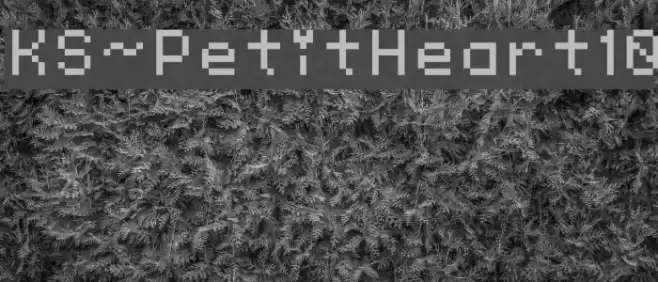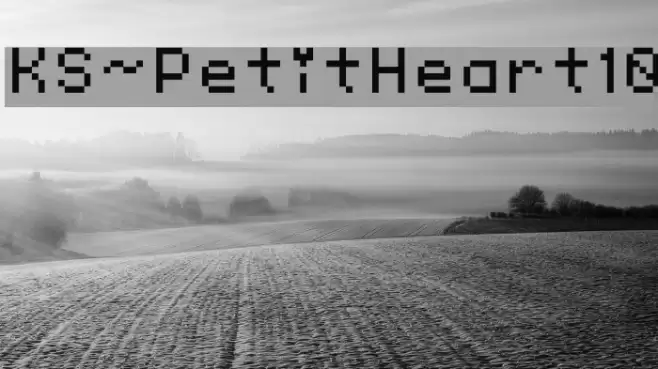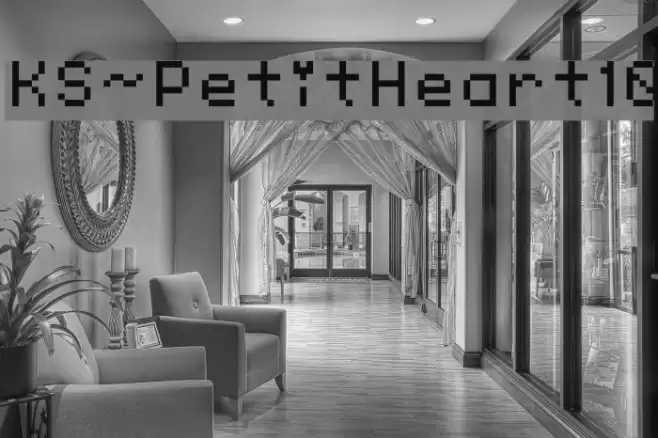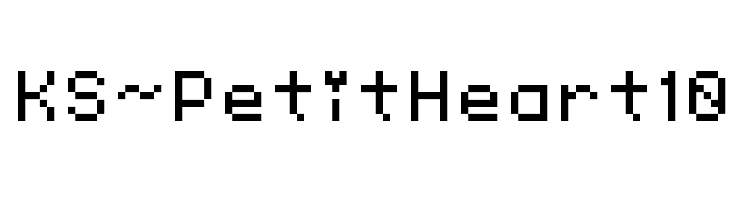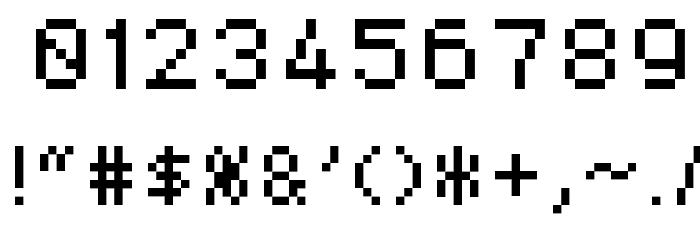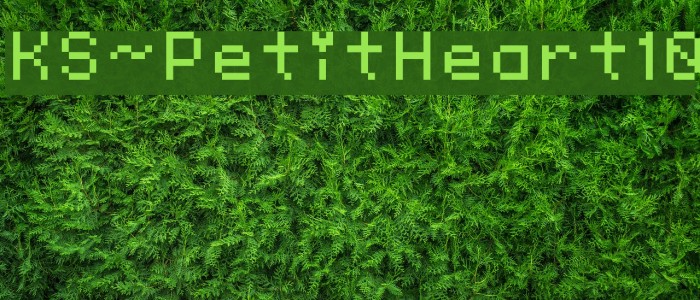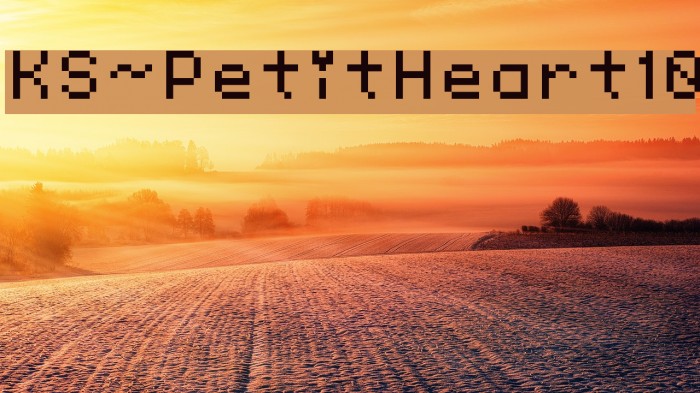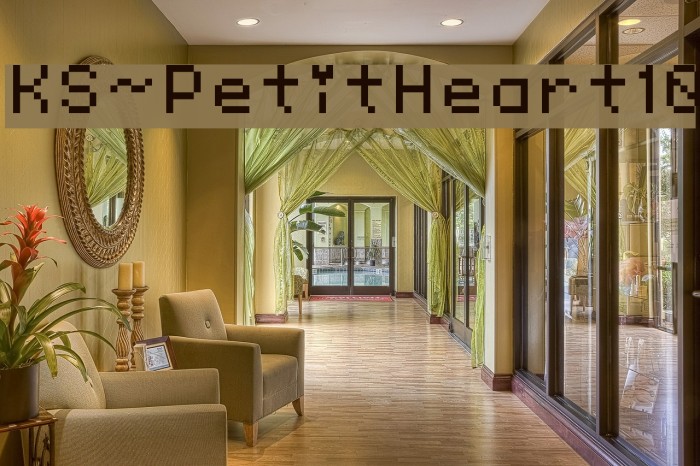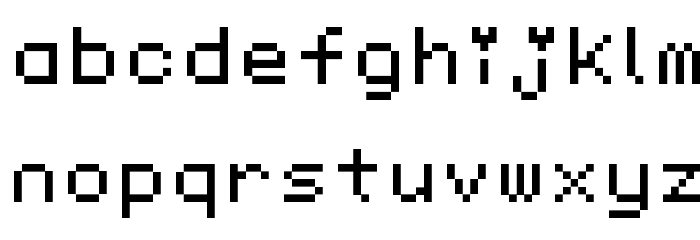
KS-PetitHeart10 Font
KS-PetitHeart10 Description
This font features a pixelated, blocky design reminiscent of early digital displays and video games. Each character is constructed with a grid-like structure, giving it a retro, 8-bit aesthetic. The uppercase and lowercase letters maintain a consistent height, contributing to a uniform appearance. The numerals and special characters follow the same pixelated style, ensuring visual cohesion across all glyphs. This font's distinct, nostalgic look makes it ideal for projects that aim to evoke a sense of vintage digital technology or retro gaming culture.
A pixelated, retro-style font with a blocky, 8-bit aesthetic from Uncategorized fonts.
- Proposed Projects: Ideal for retro video game designs, digital art projects, and nostalgic branding.
- Overall Style: Vintage
- Use Case: Logos, Headlines, Digital Art